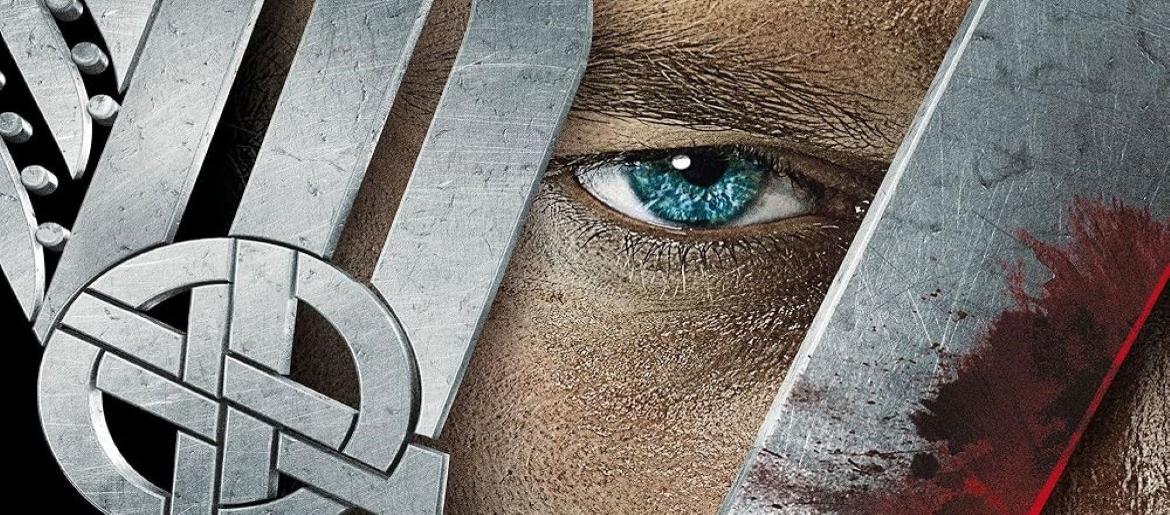
Vikings Font
The Vikings font is fierce, rugged, and dripping with that raw Norse energy. It’s got those sharp, ancient-inspired letterforms that look like they could’ve been carved straight into stone or etched on a Viking shield. The style screams strength, battle, and survival—exactly what you’d expect from a series filled with raids, gods, and epic clan rivalries. The Vikings font doesn’t try to be pretty; it’s bold, primal, and a little rough around the edges, which is why it fits the show so perfectly. Font made from the original font created by Flávio Ed. to show Vikings of the History Channel. Made of fan for home use only, so commercial use is PROHIBITED.
Vikings Font
If you’re into designs that feel powerful and historic, the Vikings font is a goldmine. It’s the kind of typography you’d want on banners, game art, or anything that needs that “warrior vibe.” It makes you think of longships, mead halls, and the clash of steel on the battlefield.
About Vikings
The show Vikings, which premiered in 2013, follows the legendary Ragnar Lothbrok and his descendants as they carve their way into history. Packed with brutal battles, complex family ties, and a touch of Norse mythology, it’s as addictive as it is intense. Just like the Vikings font, the series is bold, dramatic, and unforgettable.